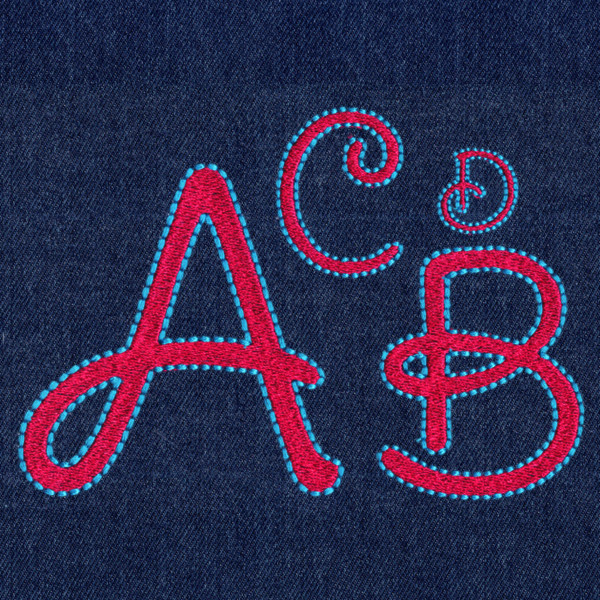
472 Curly Q Fill & Floss Font
Curly Q Fill & Floss Font comes in 1", 2", 3" and 4" heights based on the capital "A". All sizes are included in the purchase price. Features fill stitch centers with Floss Stitch outlines as two-color set up; Floss Stitch stitches out on all embroidery machines using standard embroidery thread. Some characters in the 3" and 4" sets exceed standard 4x4 hoop limitations.